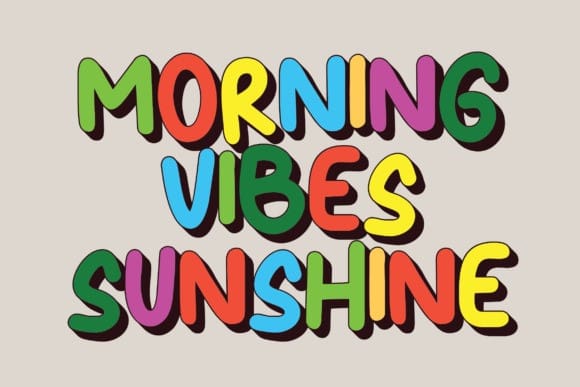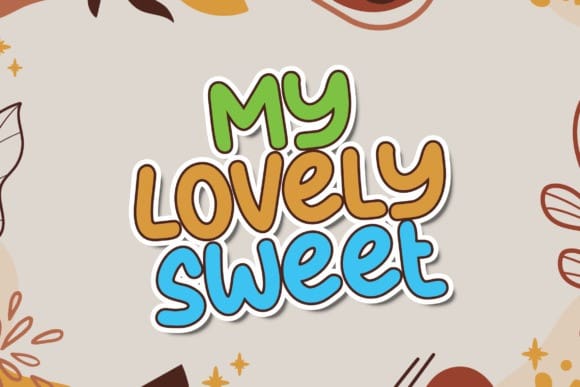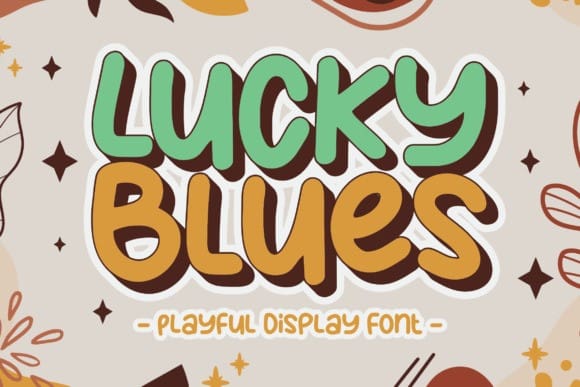
Lucky Blues Font
Lucky Blues Font is a playful and modern-styled display font. It combines nicely balanced curves with an aesthetic touch. Use it with confidence on your project designs such as quotes, greeting cards, invitations, posters, business cards, presentations, and more!